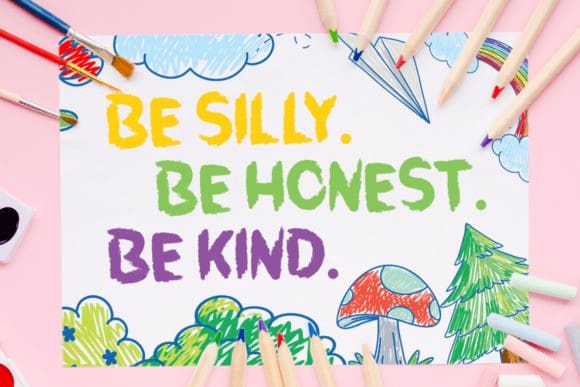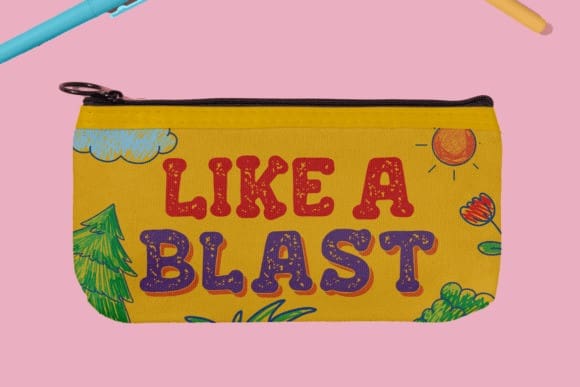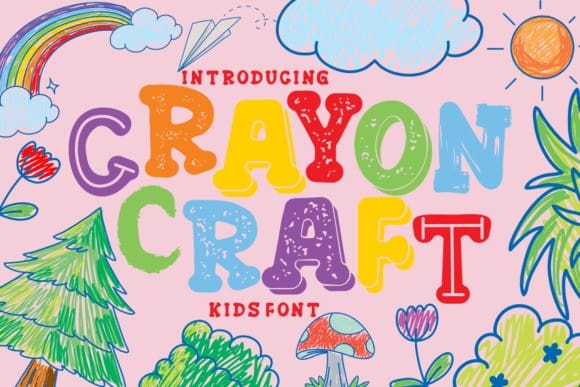
Crayon Craft Font
Crayon Craft Font serves as a delightful homage to playful, hand-drawn designs. It beautifully mirrors the uneven yet charming forms synonymous with youthful doodling, thanks largely to the chalk and crayon-inspired textures that make up its character.
Every letter in the Crayon Craft typeface is thoughtfully designed to resonate with the authenticity of a child’s drawing, bringing a pleasingly idiosyncratic feel to your projects. Offering multiple styles, the font allows designers the flexibility to mix and match, thereby creating unique and visually appealing text.
Crayon Craft is more than just a font. It’s an engaging trip back to the joyous, unrestricted imaginative world of childhood. Being highly versatile, this font comes alive in a variety of mediums, ranging from logos and branding to children’s themes, crafting projects, and invitations. It adds a playful touch to packaging, poster titles, business cards, greeting cards, children’s books, and magazines — infusing a dash of delight into any design it touches.
In essence, Crayon Craft symbolizes nostalgia artfully interwoven with modern design principles. Every intricate curve and contour serves to awaken fond memories, while simultaneously adding a fresh, fun dimension to contemporary aesthetics.